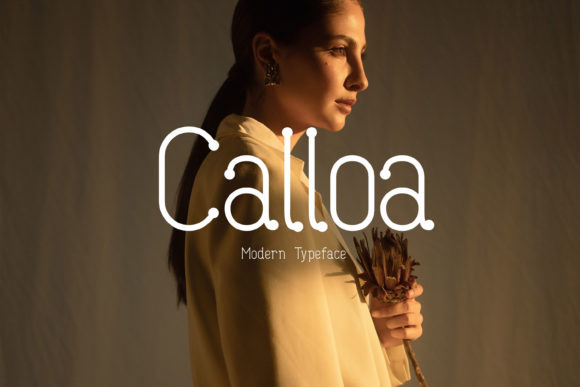
I still remember the frustration of working on a project, hours spent perfecting every detail, only to hit a roadblock when it came to choosing the right font. My client wanted something modern, clean, and tech-savvy, but I just couldn’t seem to find the perfect fit. That’s when I stumbled upon Calloa Font, a game-changer in the world of display fonts.
Calloa Font: A Modern Marvel
Calloa is a clean and modern looking display font that’s perfect for adding a smart, cool touch to your web designs, logos, or any project that requires a techno-styled edge. Its minimalist aesthetic makes it incredibly versatile, and I’m excited to share my experience with you.
So, what makes Calloa Font so special? Here are a few things I love:
- ✨ Clean and modern design: Calloa’s sleek lines and minimalist style make it perfect for projects that require a contemporary look.
- ✅ Highly legible: Even at smaller sizes, Calloa remains clear and easy to read, making it ideal for body text or headings.
- 💻 Techno-styled edge: Calloa’s unique character gives it a distinctly tech-savvy feel that’s perfect for projects that require a cutting-edge look.
Of course, no font is perfect, and Calloa has a few minor quirks:
- 🤔 Limited glyphs: While Calloa has a great selection of characters, it’s not the most extensive font out there. This might limit its use for certain projects.
- ⚠️ Not suitable for body text: While Calloa is legible, it’s still a display font at heart. It might not be the best choice for longer blocks of text.
The Designer Behind Calloa Font
While the true story behind Calloa Font’s creation is unknown, it’s easy to imagine a designer with a passion for modern technology and clean design. Perhaps they were inspired by the sleek lines of futuristic architecture or the simplicity of digital interfaces. Whatever the inspiration, Calloa Font is a testament to the power of minimalist design.
| Font Name | Calloa Font |
| Author | Design Stag |
| What is Calloa Font best used for? | Calloa Font is ideal for display purposes, such as headings, titles, and short text elements. It’s perfect for projects that require a modern, tech-savvy look. |
| Is Calloa Font suitable for body text? | While Calloa Font is legible, it’s not the best choice for longer blocks of text. It’s primarily designed for display purposes. |